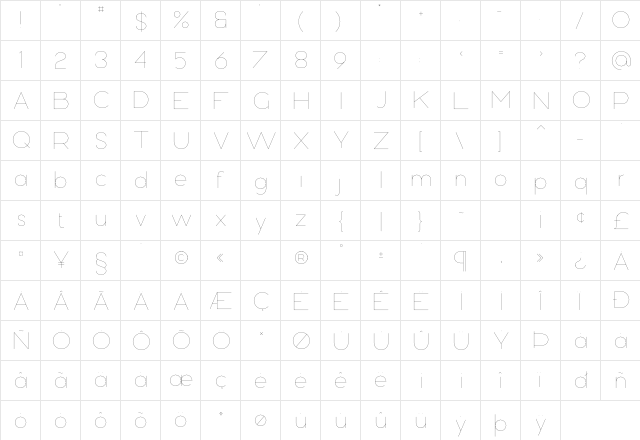
Bubbble Gum Hairline
Design Context for Bubbble Gum Typeface
Bubbble Gum takes a measured approach to typography — its balanced proportions and neutral character make it a reliable workhorse for both digital and print work. Its slender proportions lend an understated elegance to any composition.